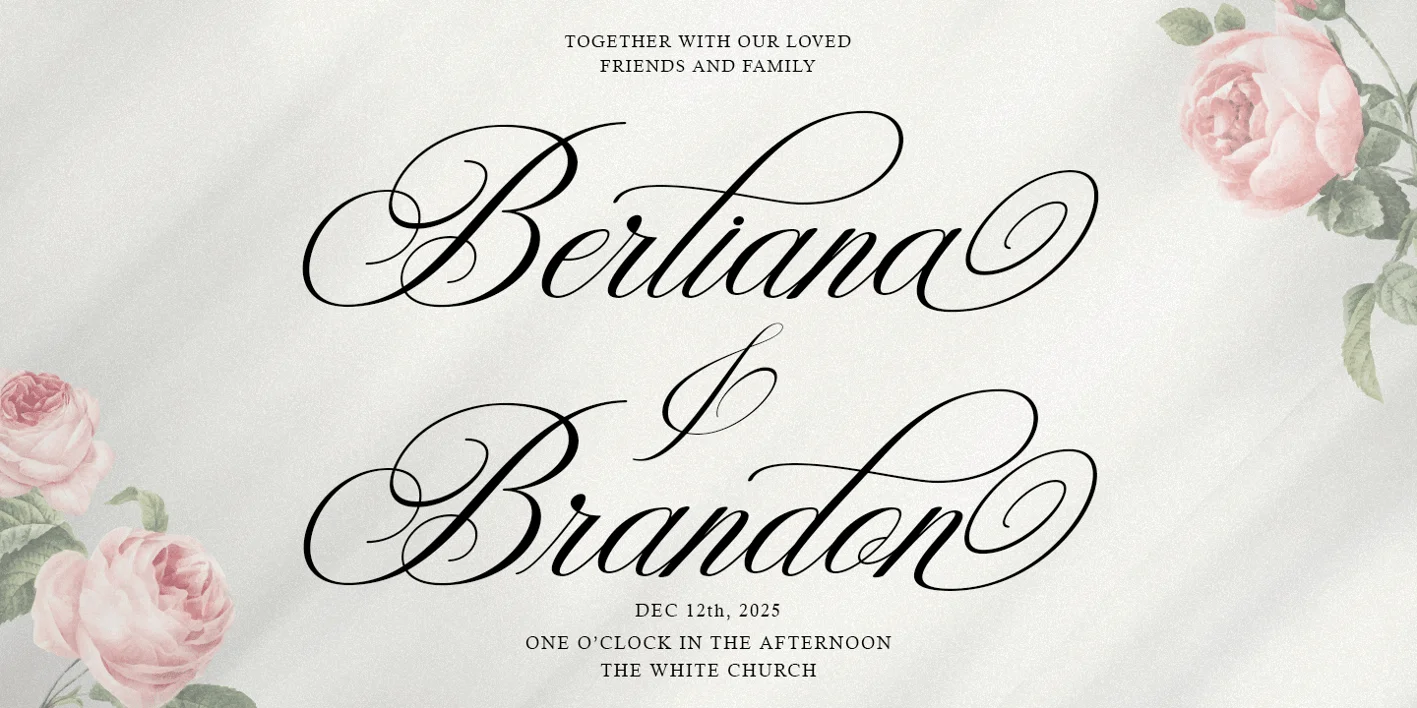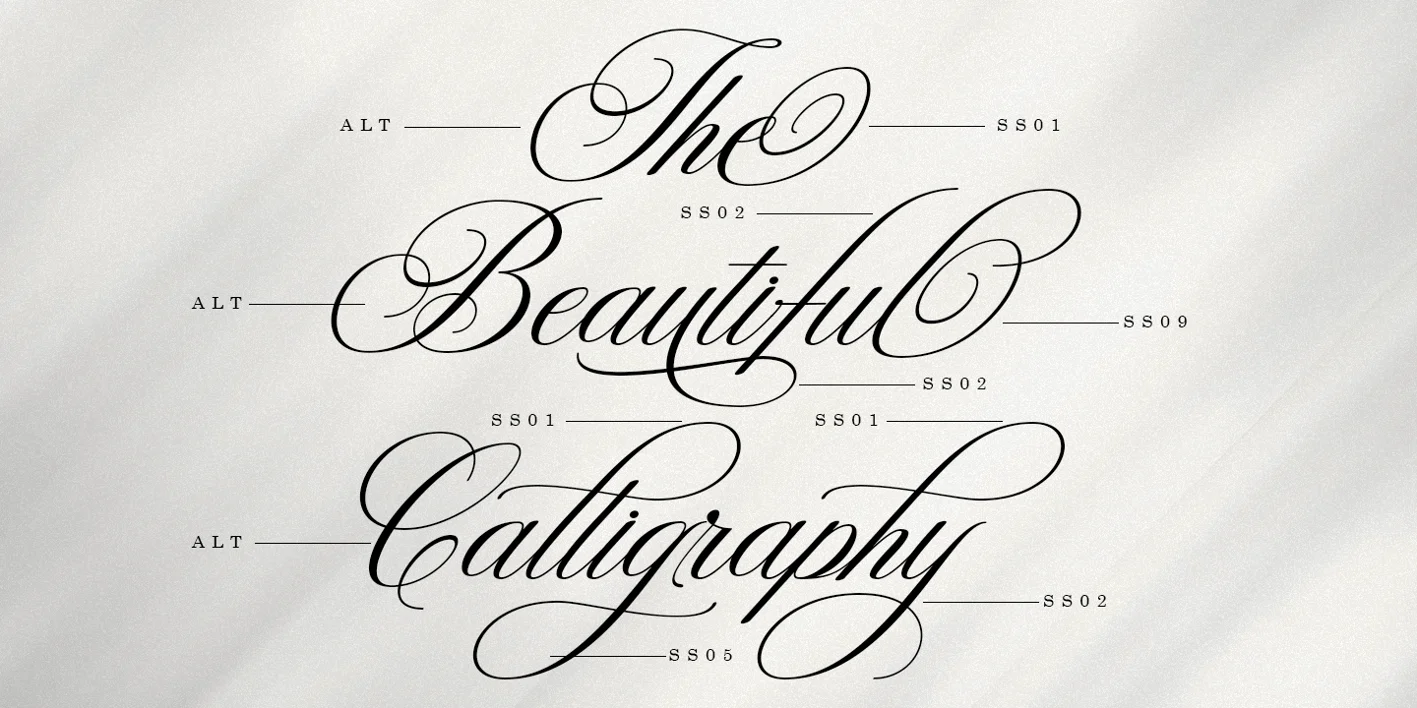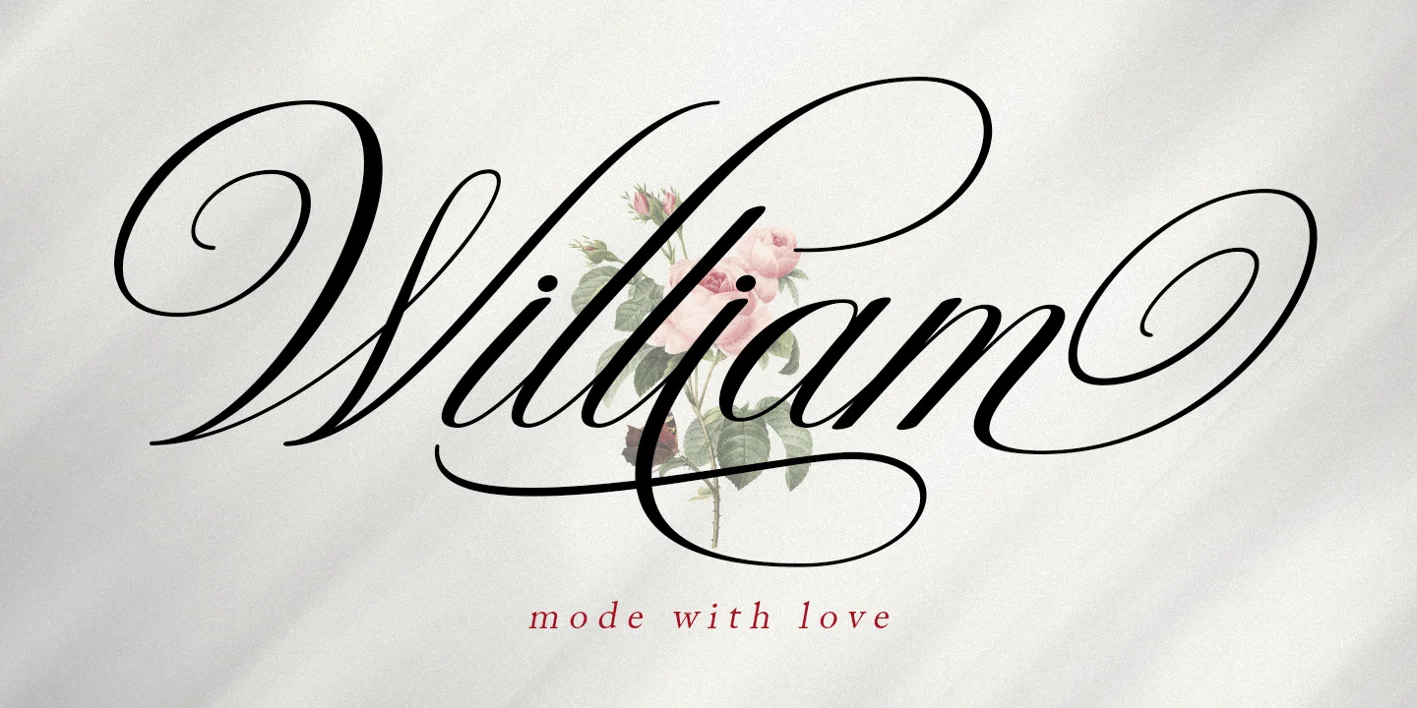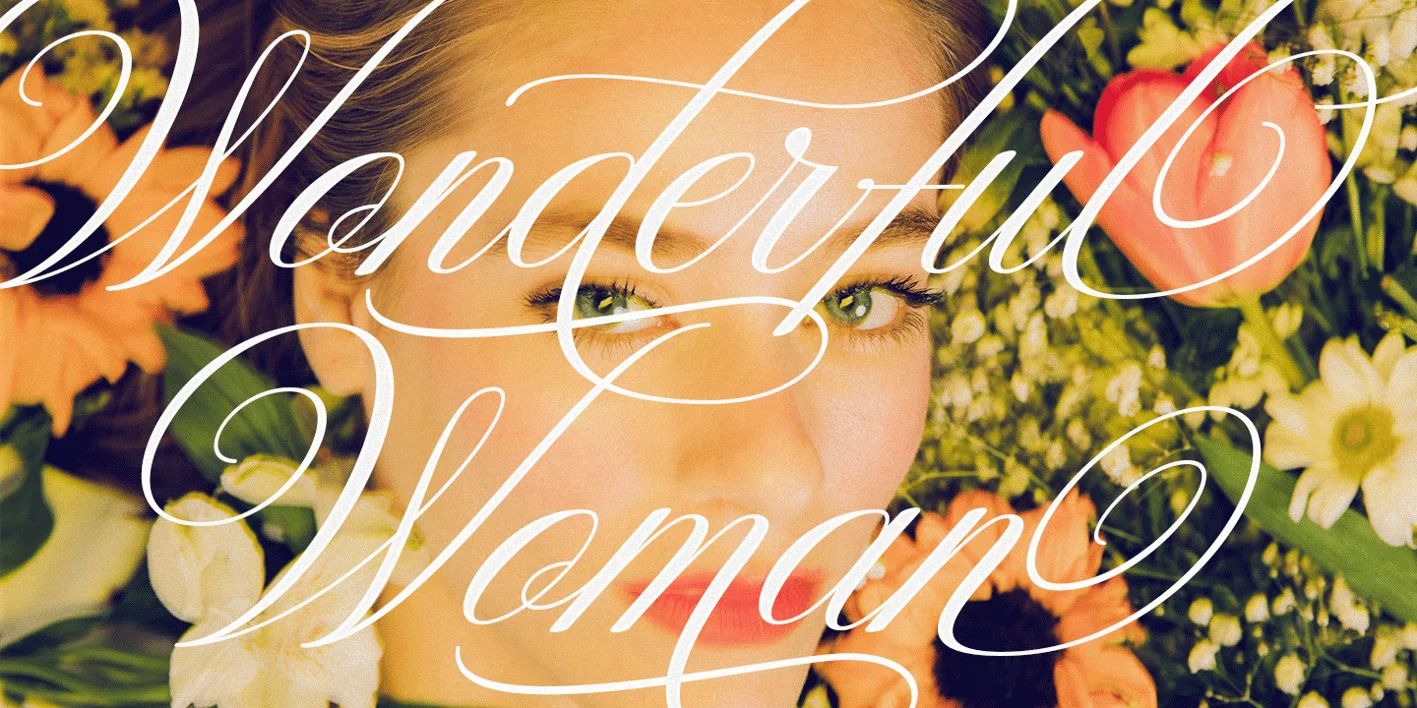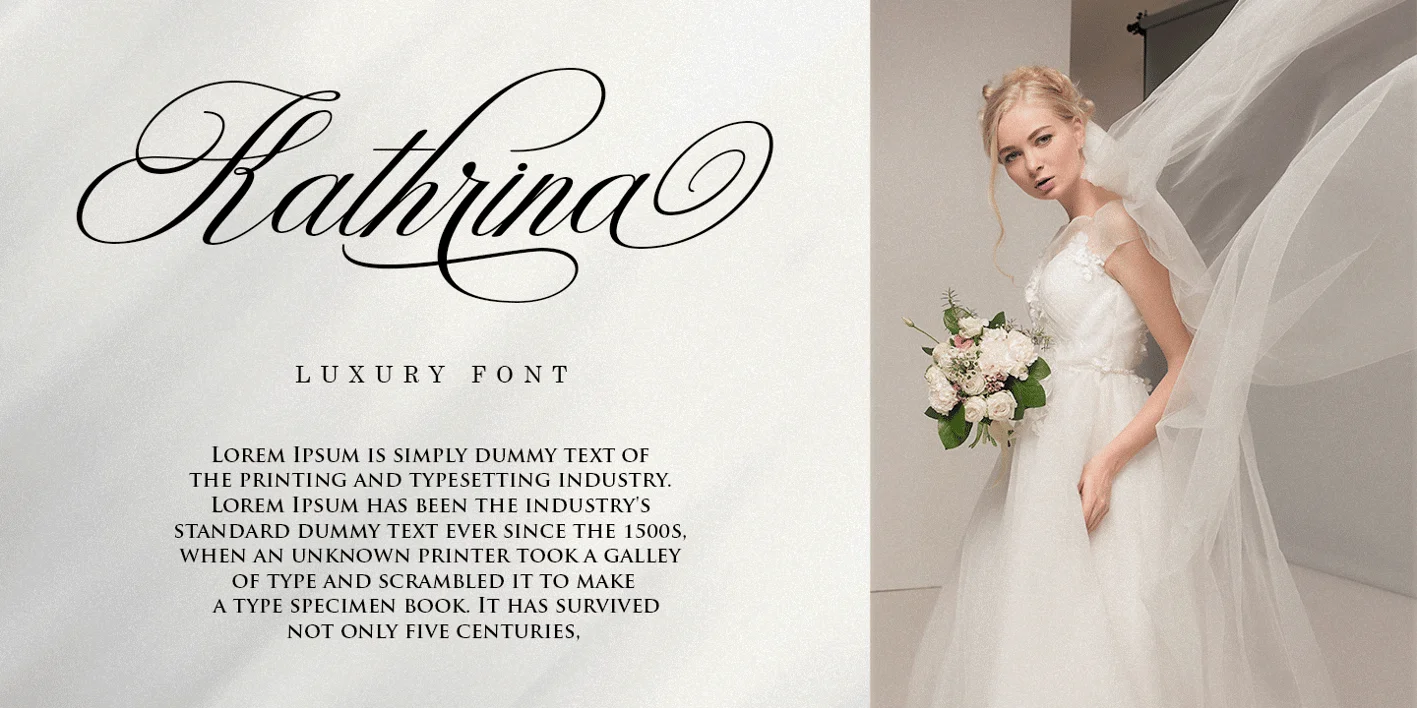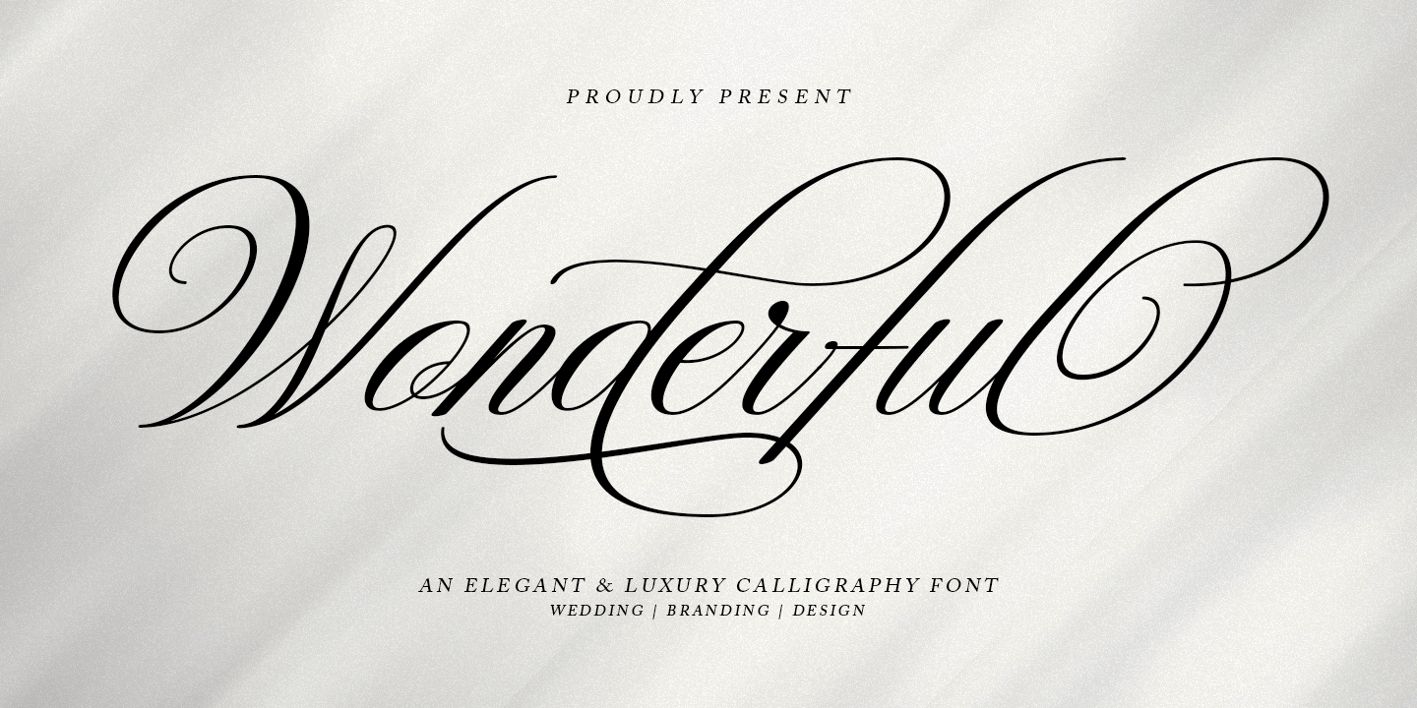
Wonderful Script Font
A good typeface communicates tone before a single word is read. Wonderful Script achieves this through refined proportions and careful stroke modulation. The typeface brings an elegant, calligraphic sensibility to a broad range of creative disciplines, with controlled contrast that rewards close inspection that holds up whether the work is print-first or screen-first.
In practice, Wonderful Script proves particularly effective for fragrance labels, poster creation, luxury stationery, boutique logos, logo design. Designers reaching for it find that the type decisions feel resolved rather than laboured — a useful quality when client timelines are tight.
The range of applications extends to product labels, environmental graphics, signage systems, brand identity systems. That breadth is deliberate: the proportions and spacing were stress-tested across a wide range of mock briefs before the typeface was finalised.
At smaller sizes the design retains its character without becoming cluttered. This resilience across scales makes Wonderful Script equally suitable for a business card and a billboard — a useful property when assets must scale across a campaign.
Brand strategists building visual languages find Wonderful Script a reliable choice for projects that demand both personality and restraint. The design avoids the self-conscious quirkiness that dates quickly, settling instead for considered distinctiveness that holds up over time.